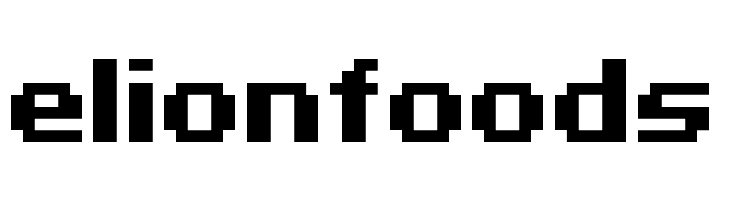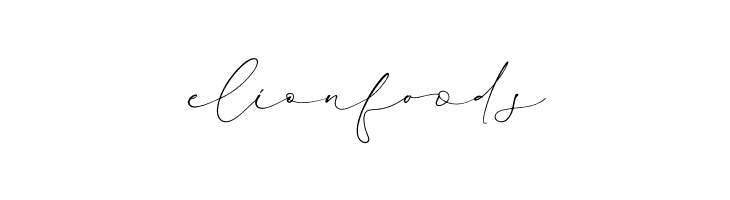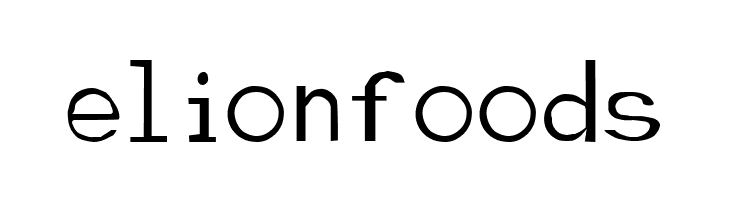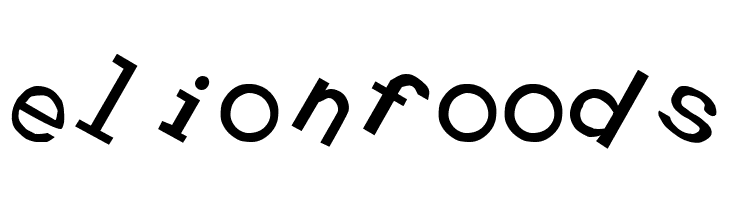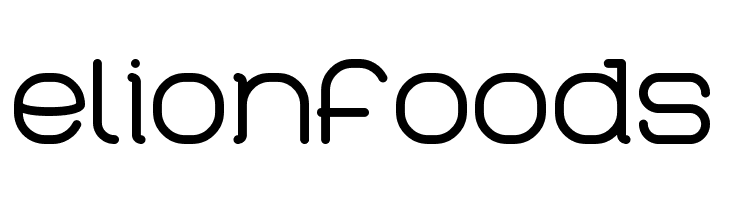
An elegant italic font with smooth curves and moderate stroke contrast.
A classic serif font with strong readability and a cohesive design, suitable for formal and editorial use.
A bold, classic serif font with strong, pronounced characters.
A bold, italicized serif font with a classic and elegant style.
Elegant serif font with italic slant and clear Cyrillic characters.
A modern, clean sans-serif font with excellent readability and versatility.
A modern, italic sans-serif font with a sleek and dynamic style.
A dynamic and fluid script font with elegant, flowing curves.
A delicate and elegant handwritten script font.
A bold, pixelated font with a retro, 8-bit video game aesthetic.
A bold, distressed font with a vintage rock poster vibe.
A bold, retro-inspired font with a strong, vintage appeal.
A whimsical and artistic font with a blend of modern and vintage elements.
A bold, italic script font with a retro and dynamic style.
A bold, geometric font with a modern, industrial feel.
A bold, rounded font with a retro and playful style.
A bold, futuristic font with geometric shapes and sharp angles.
A classic, elegant script font with sweeping curves and ornate details.
A classic, elegant calligraphic font with graceful curves and fluid motion.
An elegant script font with flowing curves and decorative swashes.
An elegant script font with flowing, cursive style and intricate loops.